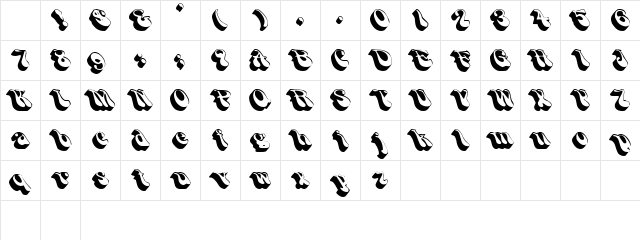
Complete FlashbackExtended Regular glyph index. Displaying only characters natively supported by FlashbackExtended Regular font.
FlashbackExtended is a composed and adaptable typeface that performs quietly and consistently across a wide range of design contexts.